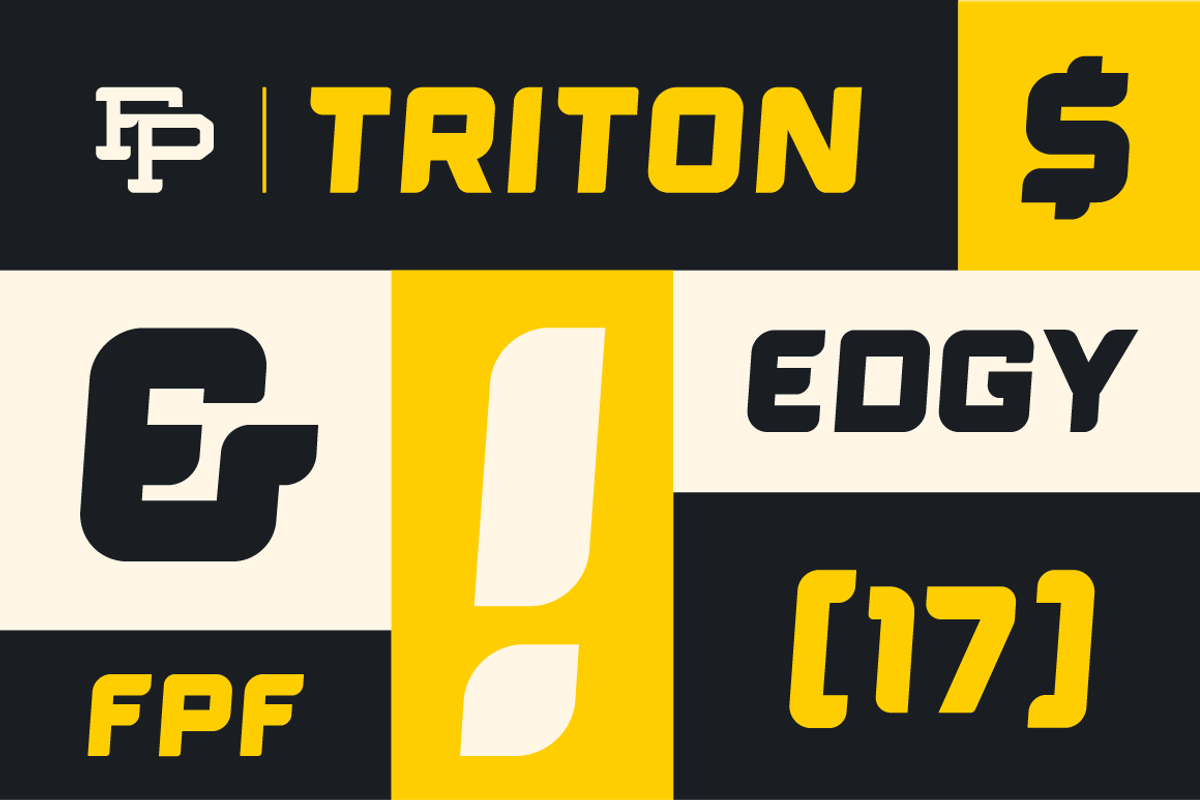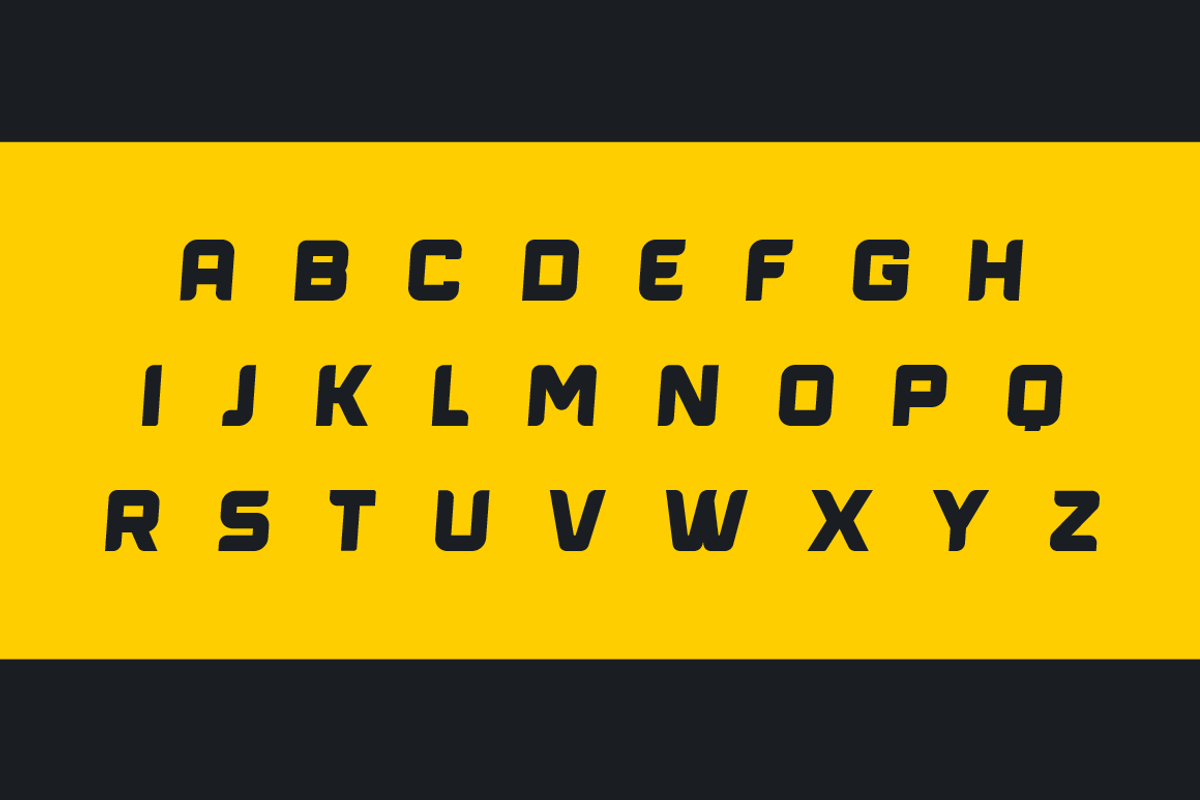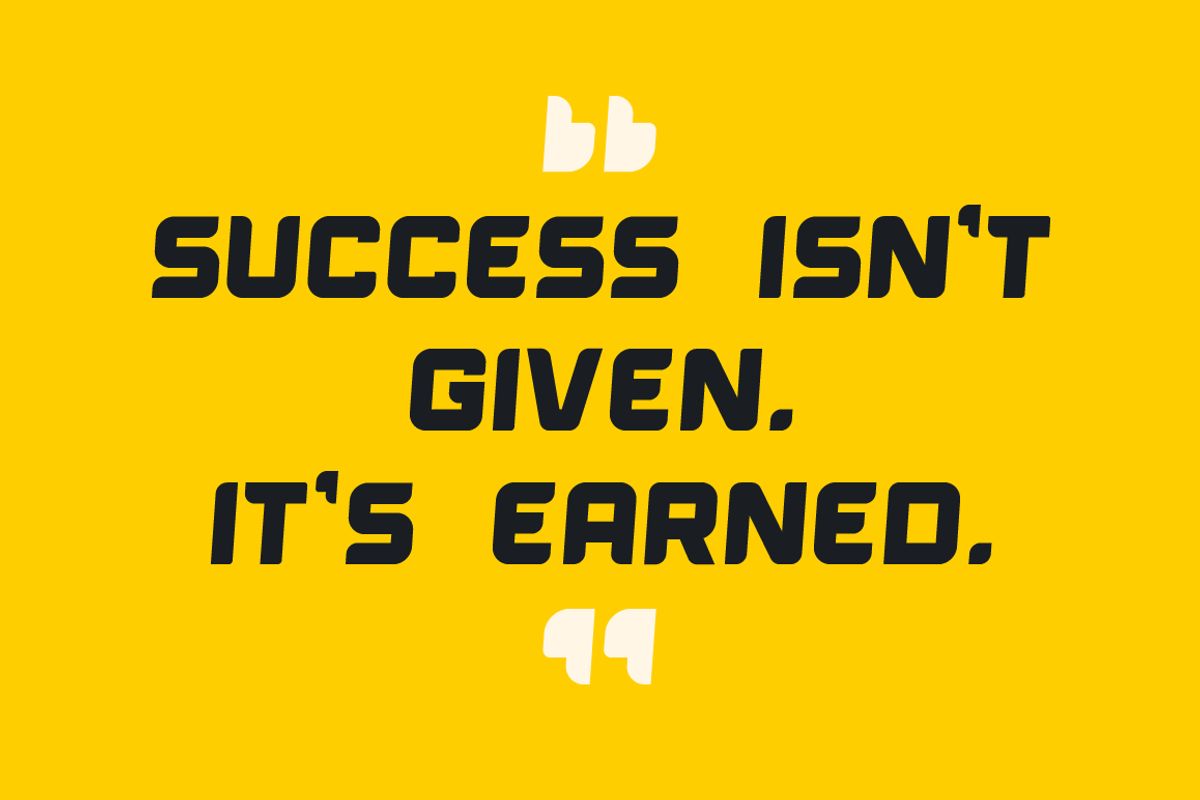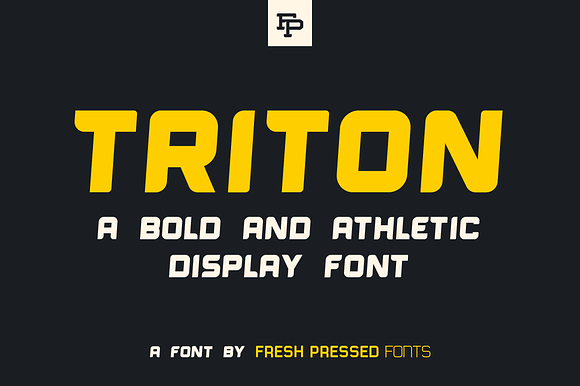
Triton Display Font
Introducing Triton, an all new display typeface from Fresh Pressed Fonts!
Triton was designed with a sports influence - with a bold appearance, slanted angle, and a mix of rounded and sharp corners. It can be used in all kinds of ways as a strong and bold display font. It's perfect for supporting your designs that require a sharp font that doesn't steal the show but still makes a statement.
This is an uppercase font with 200+ glyphs and international language support.